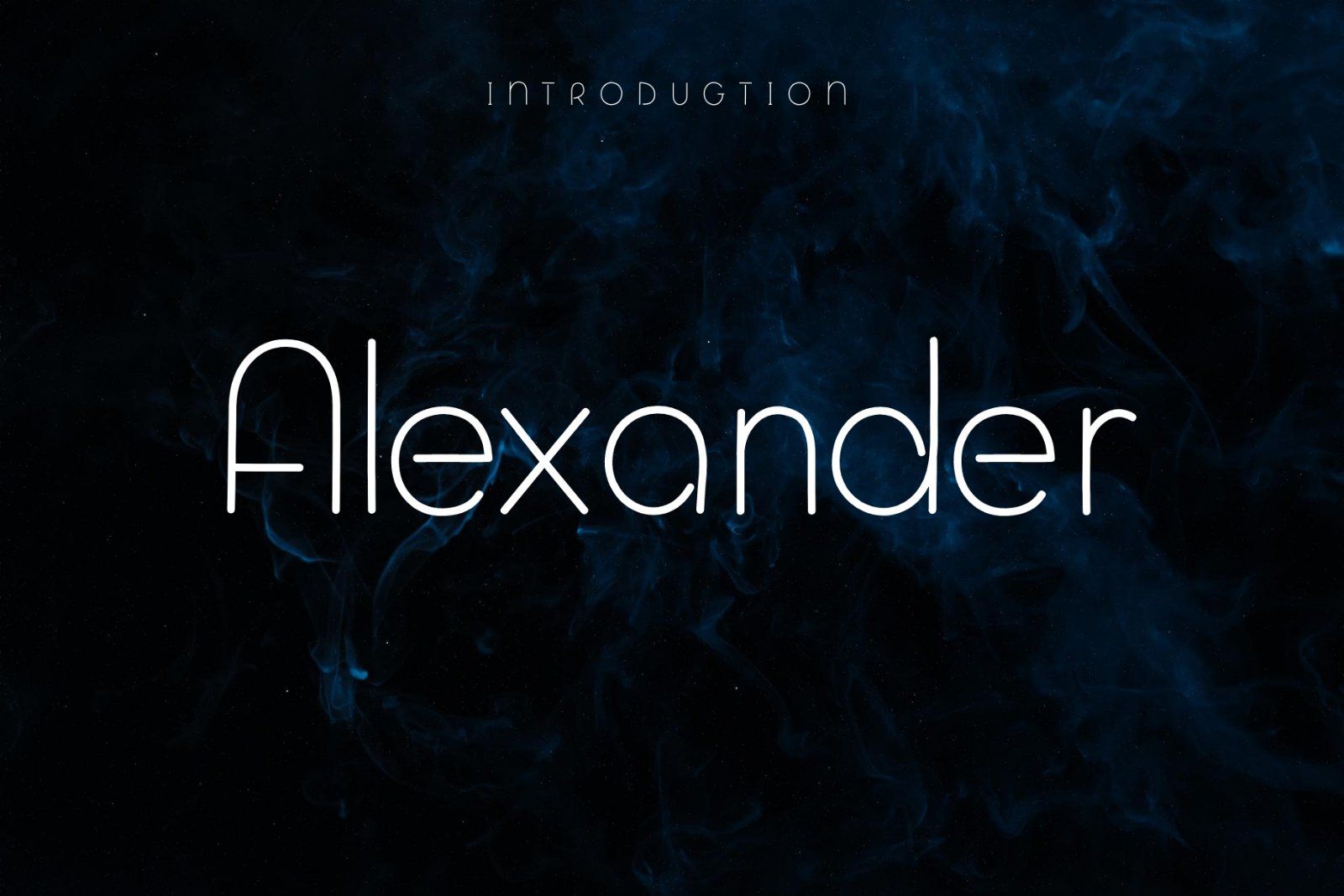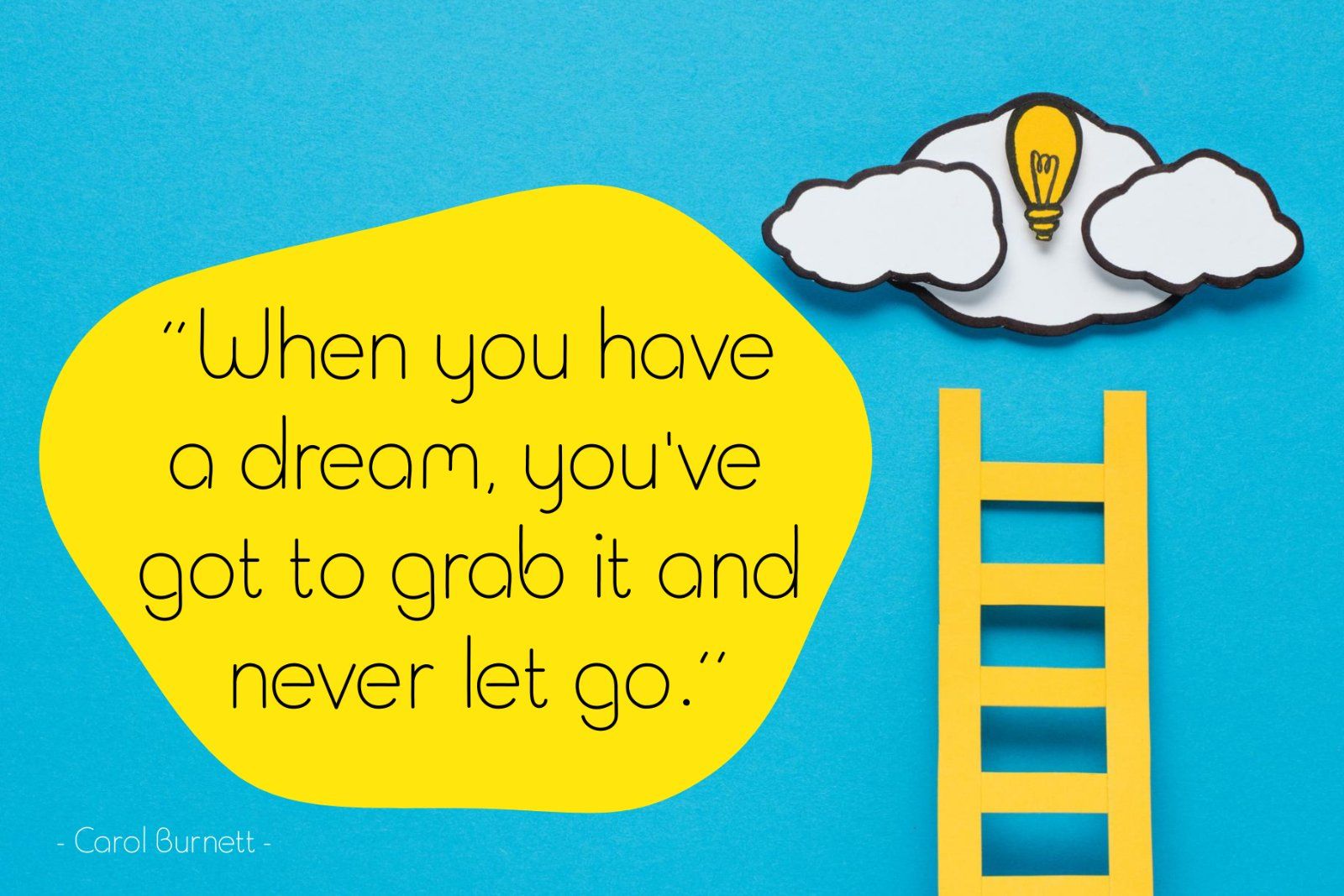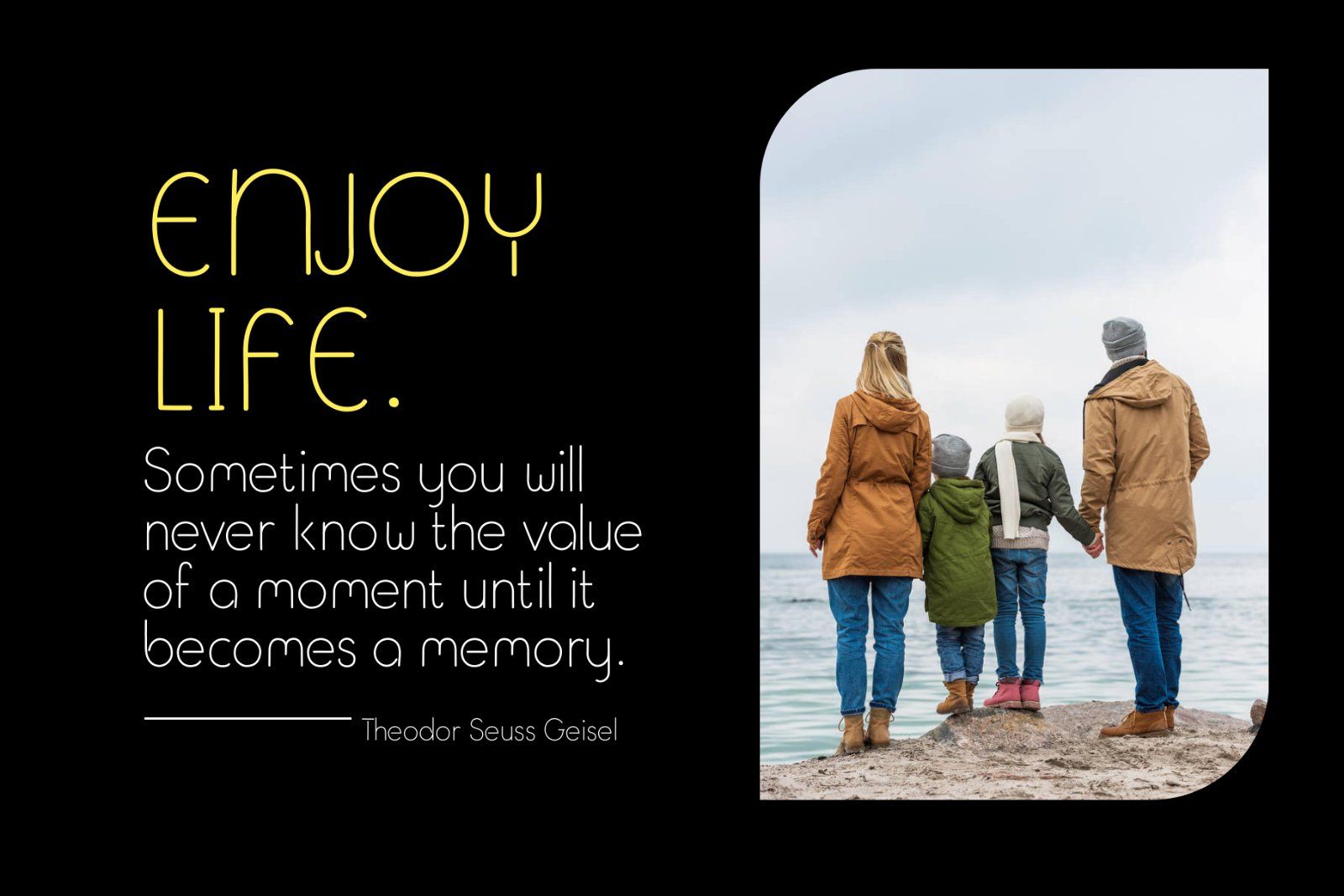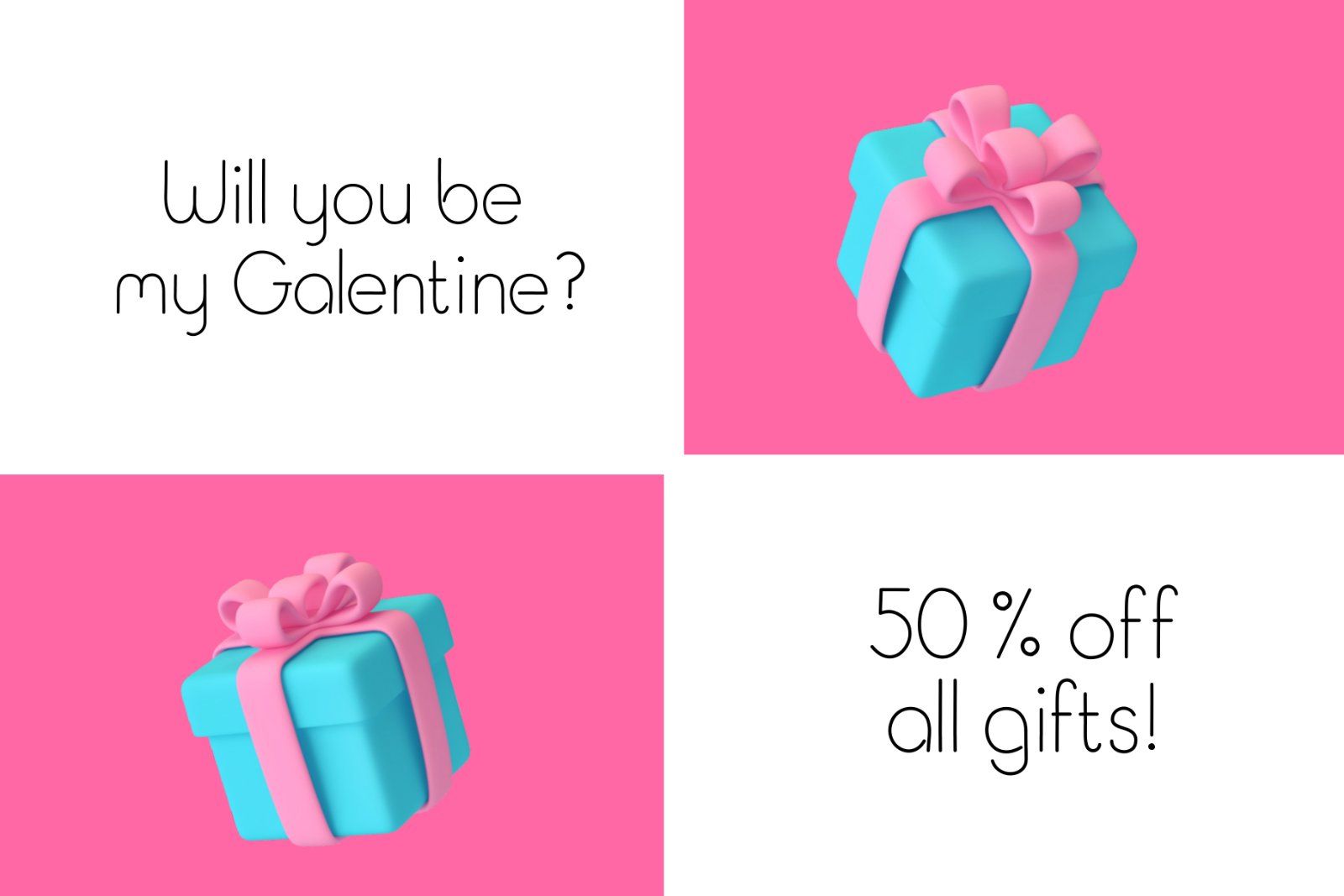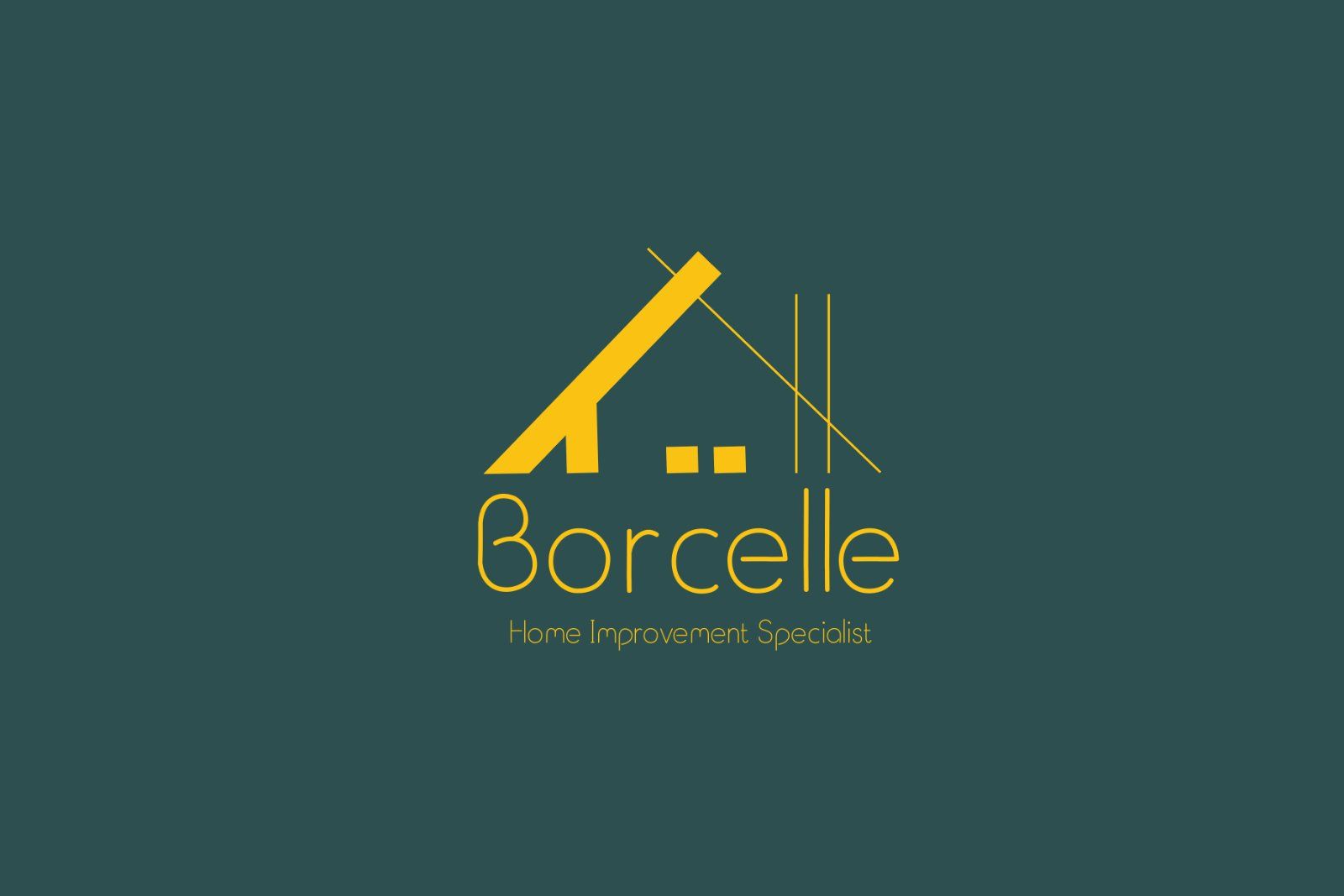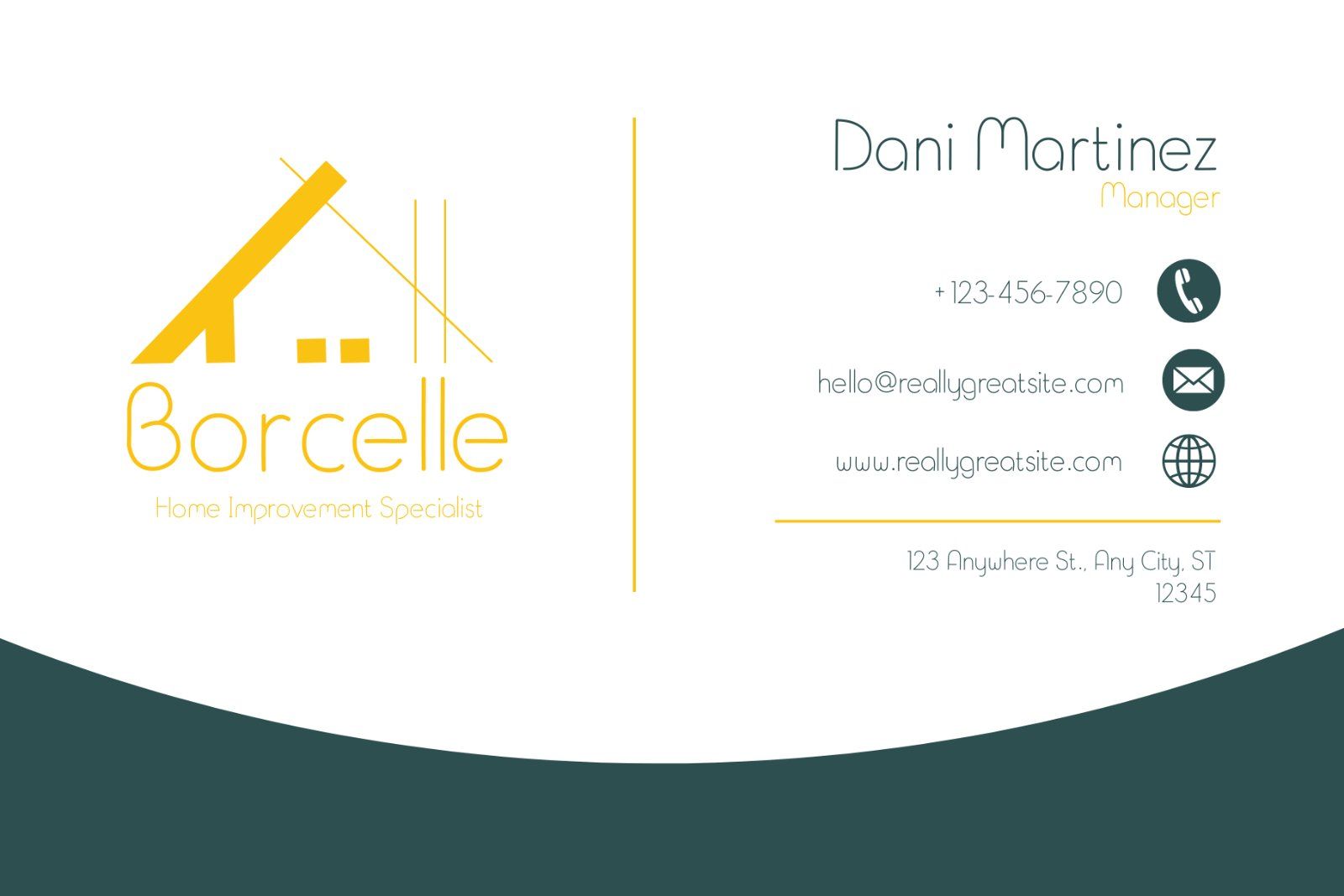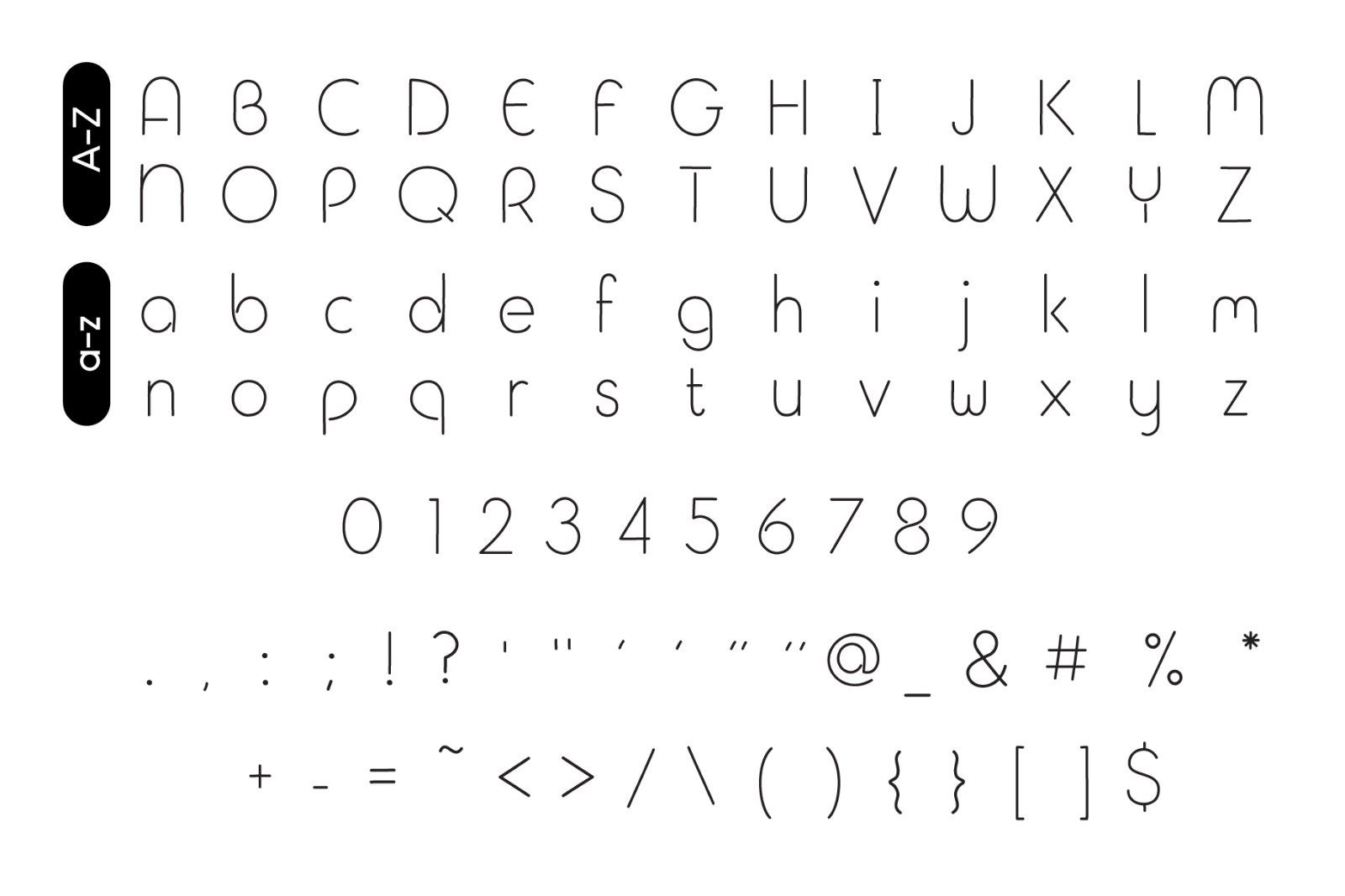
Alexander is a minimal and neat sans serif font. and designed for headlines, titles, and subtitles. You can use it for various projects, such as blog posts, logos, branding, ads, invitations, greeting cards, planners, photo albums, decorations, and much more. Add it to any of your designs, and enjoy the results!